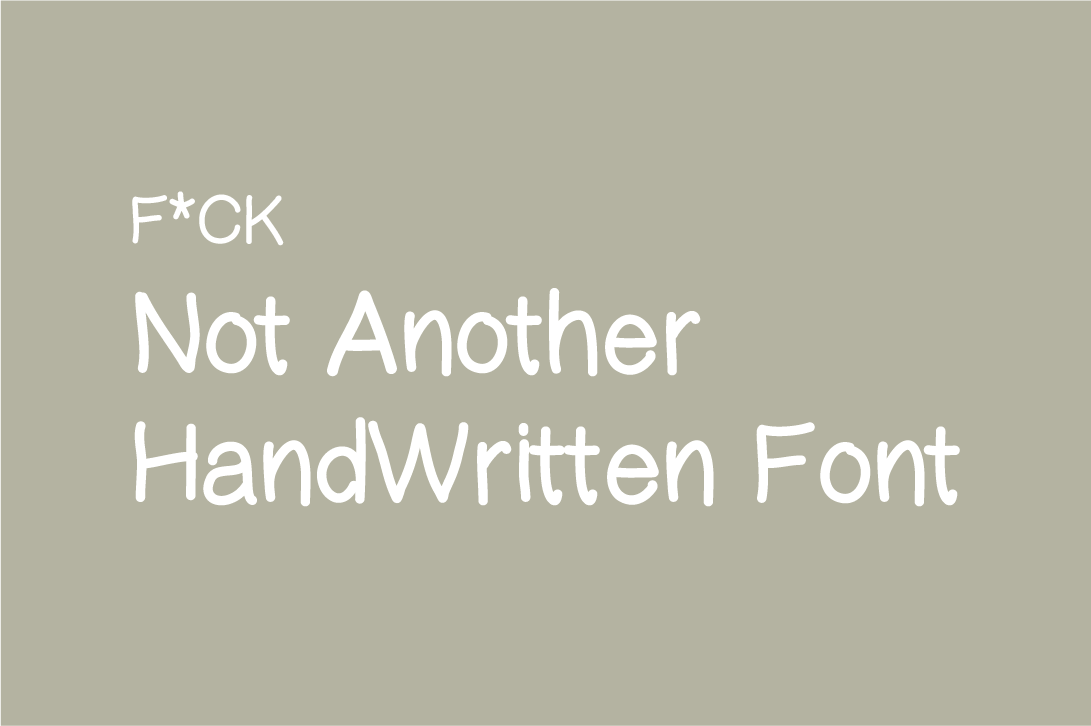
Not Another Handwritten Font
Not Another Handwritten Font™ is a no contrast, display font designed for cheeky graphics, posters and brand identities designed by Kelsey Kleiner at OneTen The Studio.